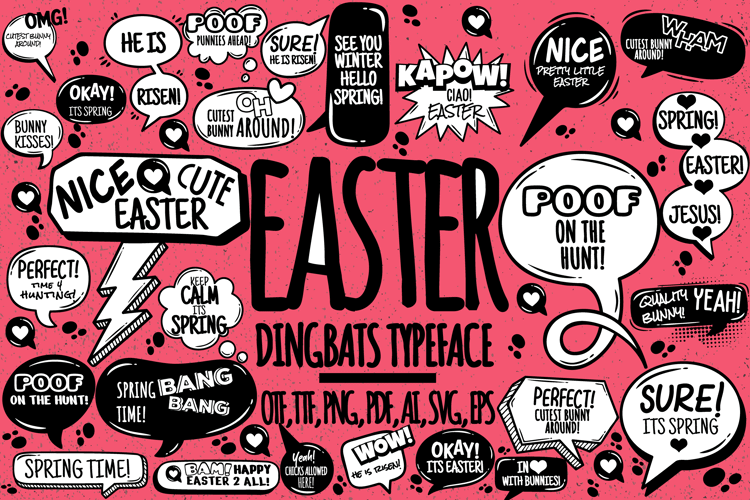
EASTER BUBBLES Font
๐จ Font Name: EASTER BUBBLES by Minimalist Art Studio
๐จ Font Description: Easter Dingbats Typeface is a playful sans serif packed with comic-style phrases and festive energyโperfect for springtime cards, Easter crafts, and seasonal packaging.
โ Complete Latin set + multilingual diacritics
โ Alternates, stylistic sets & ligatures
โ Numbers, small caps, and extended punctuation
โ Bonus italics and family styles